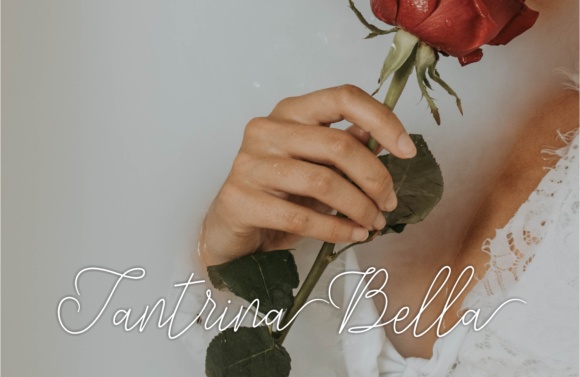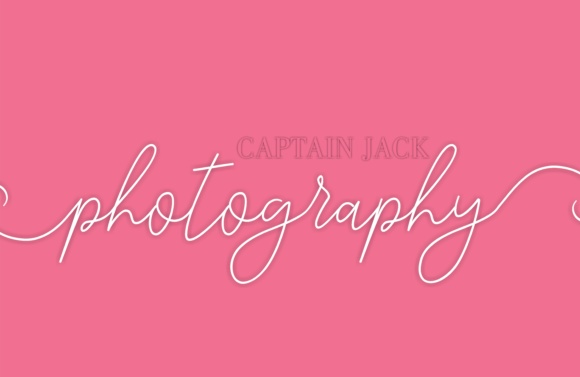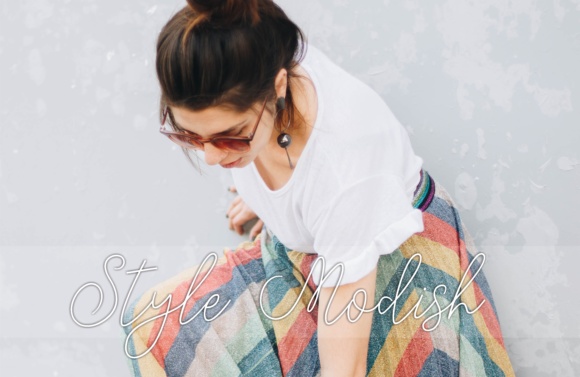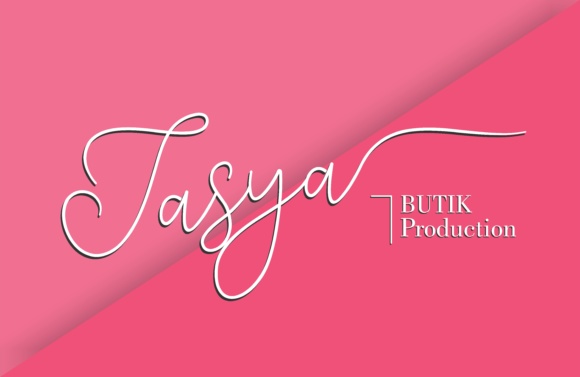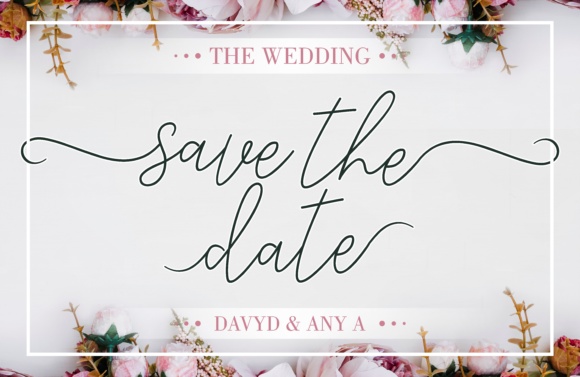
Introduction to Modista Script Font
Have you ever been working on a creative project, and you just can’t seem to find the perfect font to give it that extra oomph? You scroll through countless options, but nothing seems to capture the essence of your design. That’s where the Modista Script Font comes in – a beautiful, high-quality script font that’s sure to elevate your project to the next level.
With its smooth, handwritten style, the Modista Script Font is perfect for branding projects, logos, product packaging, and more. Whether you’re looking to add a touch of elegance to your design or create a stunning text overlay on a transparent background, this font is a valuable resource for designers.
Key Features of Modista Script Font
- High-quality, elegant script font ideal for creative projects requiring a touch of sophistication.
- Transparent background option allows for seamless integration with custom backgrounds and designs.
- Designed to be highly legible, making it perfect for use in titles, headings, and other display typography.
- Includes a range of ligatures and swashes, adding an extra layer of flair to your designs.
Honest Review: Modista Script Font
I’ve been using the Modista Script Font for a few of my recent creative projects, and I have to say, I’m quite impressed with its quality and versatility. ✨ It’s become one of my go-to design resources, especially for projects that require a touch of elegance and sophistication.
One of the things I love about this font is its high quality and attention to detail. The script is beautifully crafted, with each letter flowing seamlessly into the next. The transparent background also makes it easy to use on any design surface, whether it’s a solid color or a busy pattern.
- High quality, detailed script design
- Transparent background for easy design integration
Overall, I’d say that the Modista Script Font is a solid addition to any designer’s toolkit. It’s easy to use, versatile, and adds a touch of class to any project. ✨ If you’re looking for a high-quality script font to elevate your creative project, I’d definitely recommend giving it a try.
- May not be suitable for projects that require a more modern or edgy feel
- Some users may find the font a bit too ornate or over-the-top
That being said, I do think that the Modista Script Font is worth considering for any designer looking for a high-quality, elegant script font. Just be sure to use it in the right context to get the most out of it. ⚠️
Use the Modista Script Font for wedding invitations, greeting cards, or any creative project that requires a touch of elegance. You can also use it for branding and marketing materials to create a unique and memorable impression.